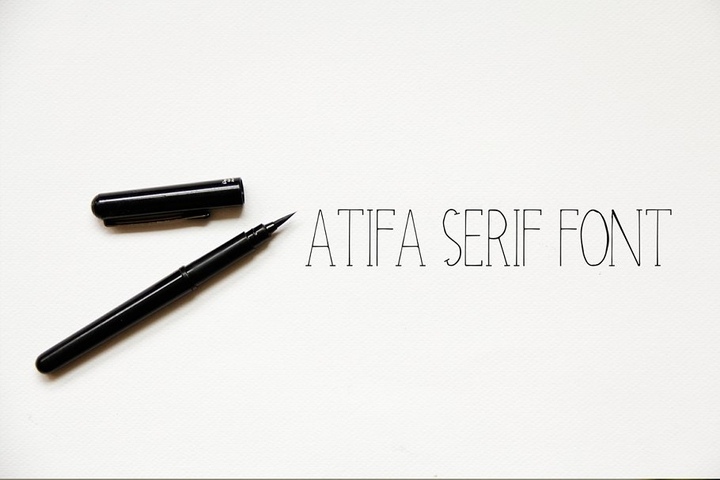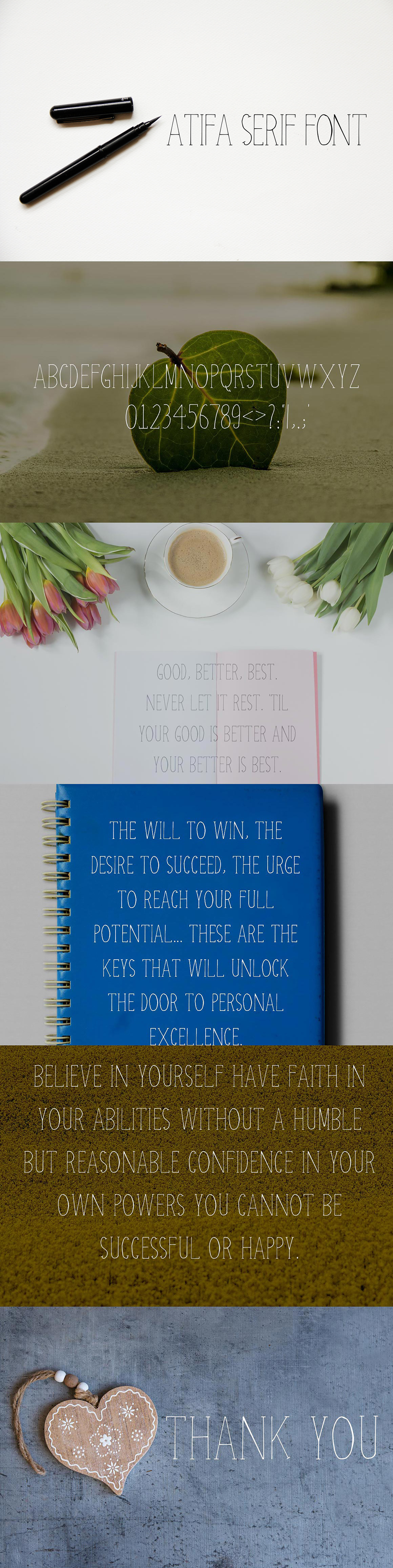
Atifa Serif Font
Atifa Serif Font is perfect for elegant book covers, sophisticated editorial layouts, premium brand logos, upscale wedding invitations, luxury product packaging, cultural publications, refined marketing materials, and distinguished corporate communications.
Atifa Serif Font is exciting because it embodies graceful sophistication with meticulously crafted serif details and harmonious proportions that create timeless elegance while ensuring exceptional readability. Its refined character projects cultural distinction and intellectual authority across all design applications.
Atifa Serif Font family includes regular weight with stylistic alternates and elegant variations, providing designers with comprehensive options for creating sophisticated typography solutions that convey prestige and cultural refinement.
Design professionals consistently select Atifa Serif Font for projects requiring intellectual gravitas and cultural authenticity. Its elegant character works magnificently in academic publications, museum materials, luxury hospitality branding, and upscale retail environments where cultural refinement and sophisticated appeal drive audience engagement. The font's distinguished presence creates memorable brand experiences that communicate expertise and cultural awareness.
Creative teams appreciate Atifa Serif Font's ability to communicate authenticity and intellectual sophistication in competitive cultural markets. Its elegant styling transcends design trends while maintaining the gravitas required for serious cultural positioning, making it an essential tool for organizations seeking to establish lasting authority through superior typography and exceptional cultural communication that honors tradition while embracing contemporary excellence.